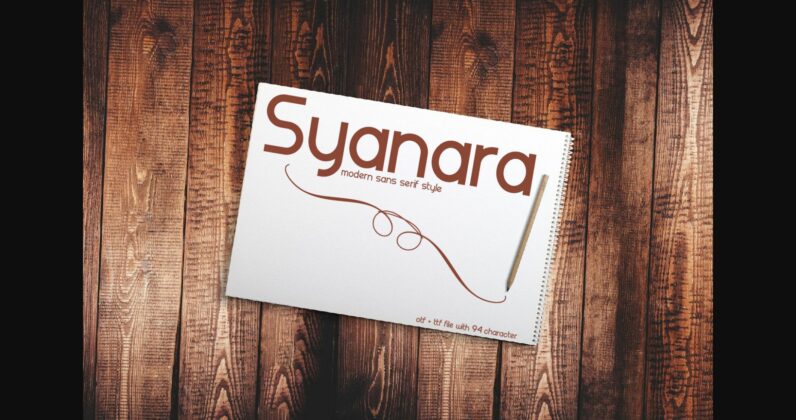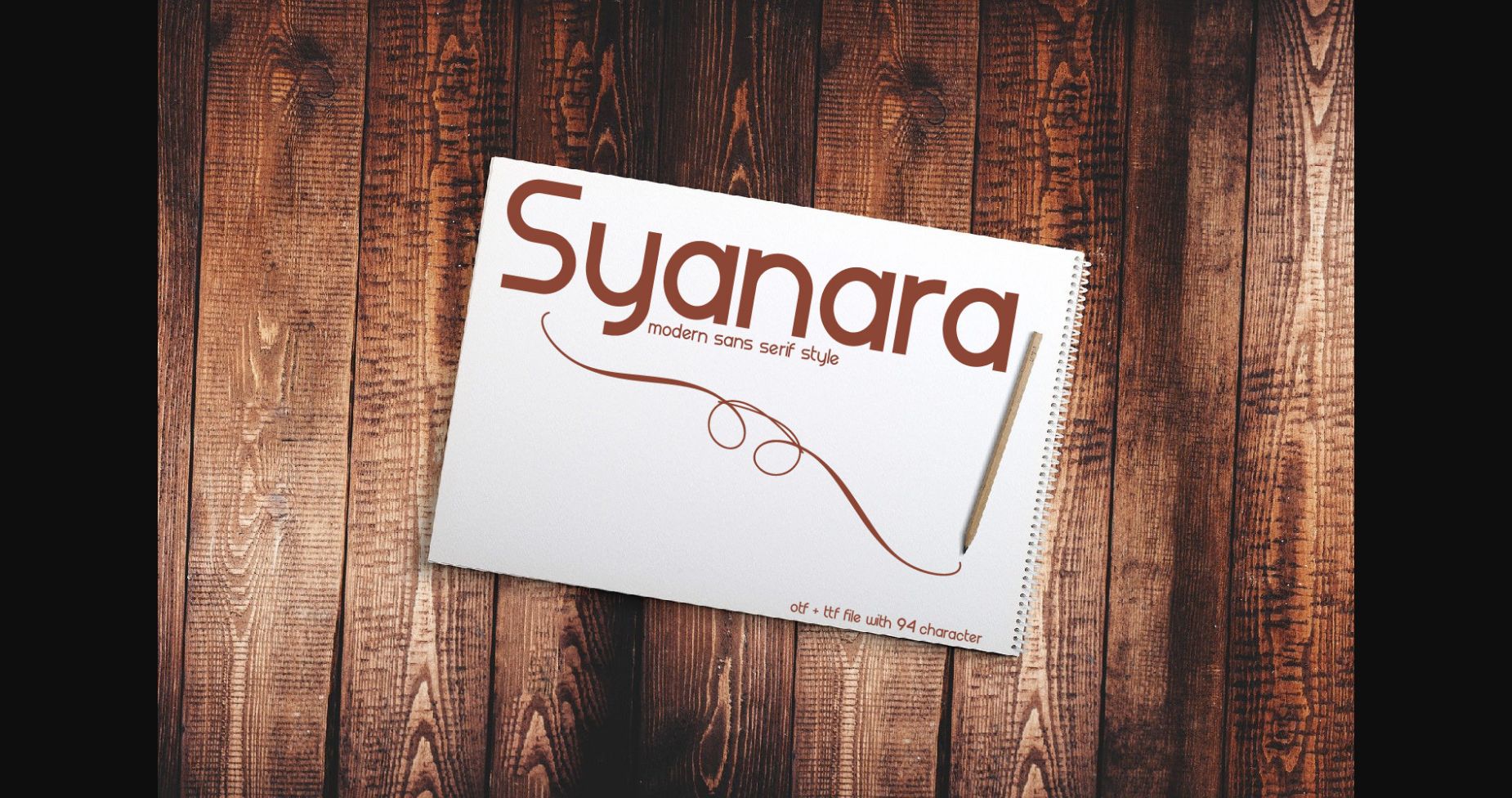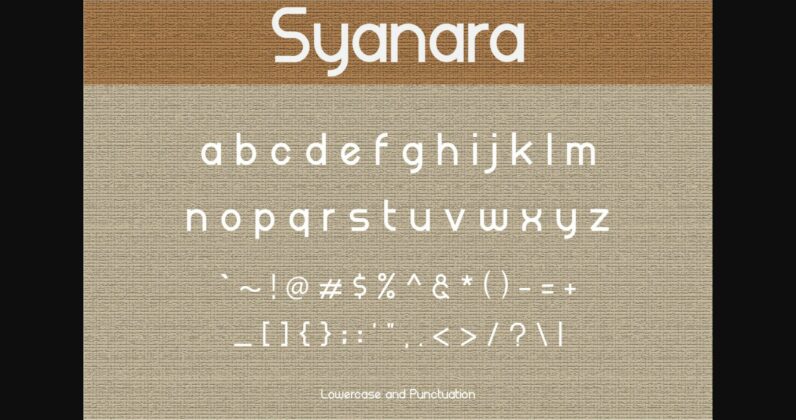
About Syanara Font
Syanara is a minimal, yet elegant sans serif font. Suitable to a wide variety of designs due to its neat and simple style, this font has the potential to become your favorite go-to font, no matter the occasion!